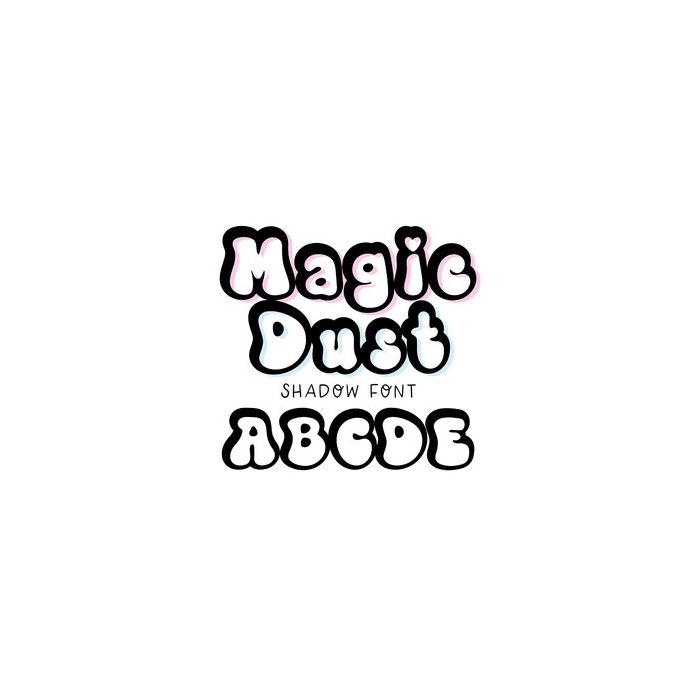
BFC Magic Dust Shadow Retro Bubble Layered Cute Font
Magic Dust Shadow is a cute and bubbly retro font. Layer it with our regular version "Magic Dust" for a two-toned look!